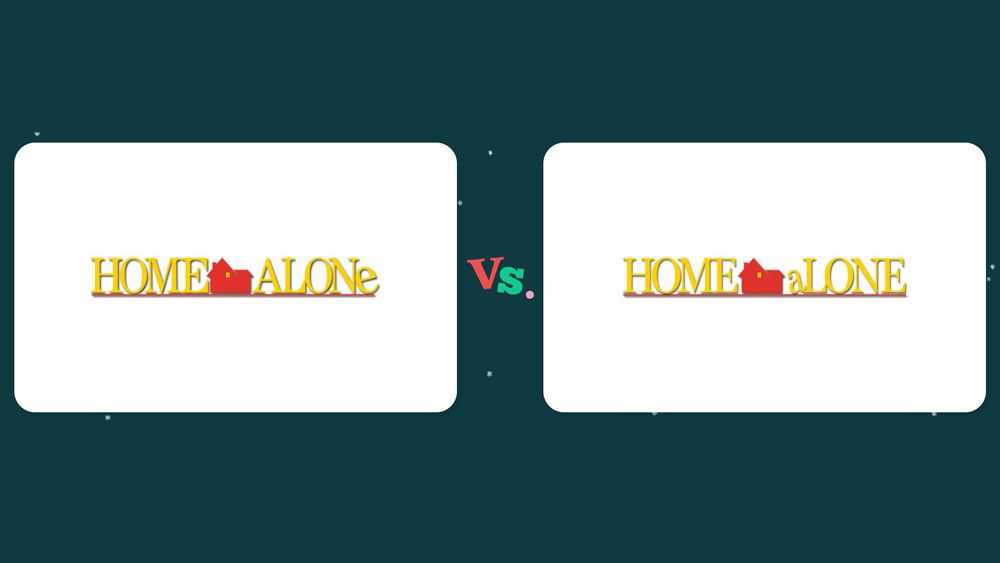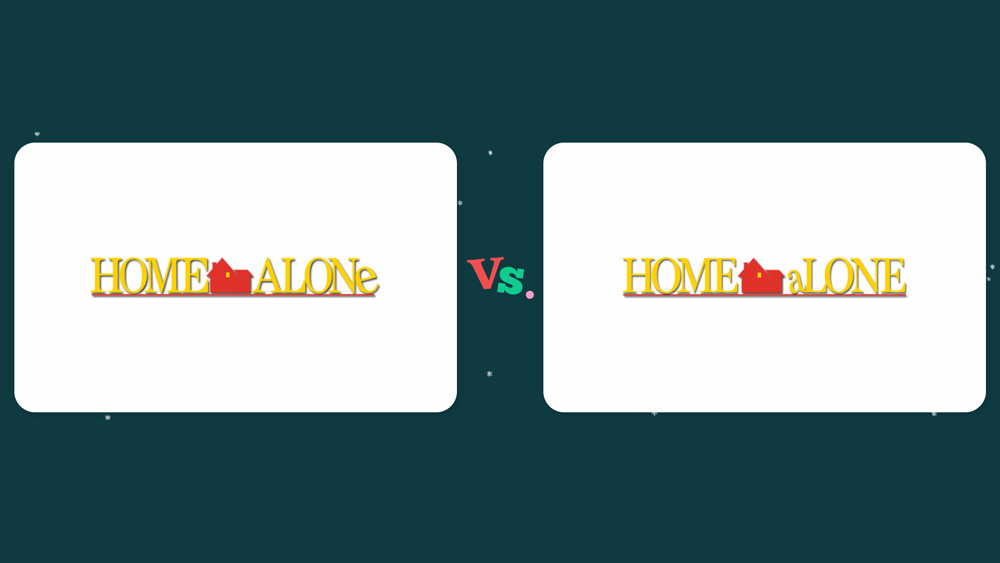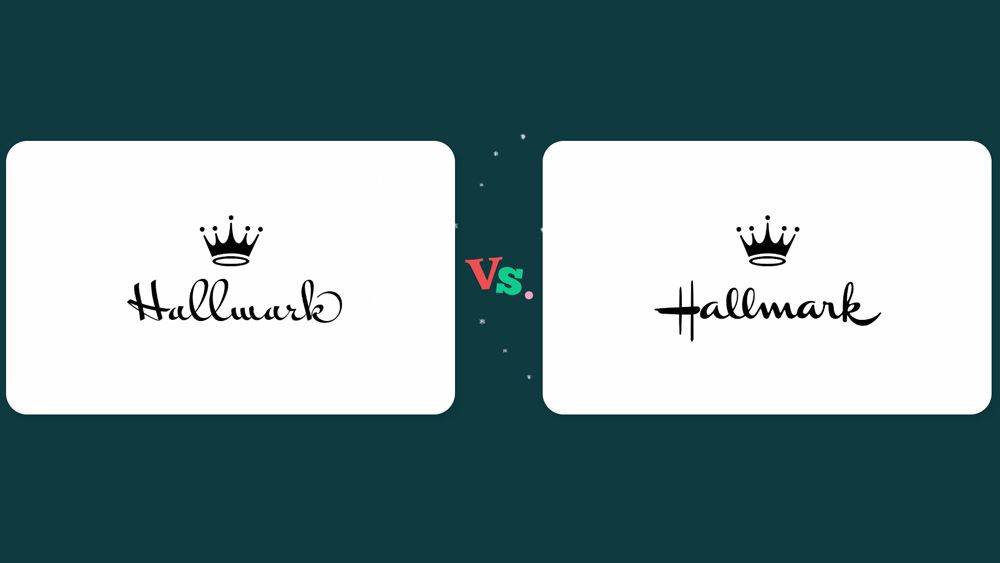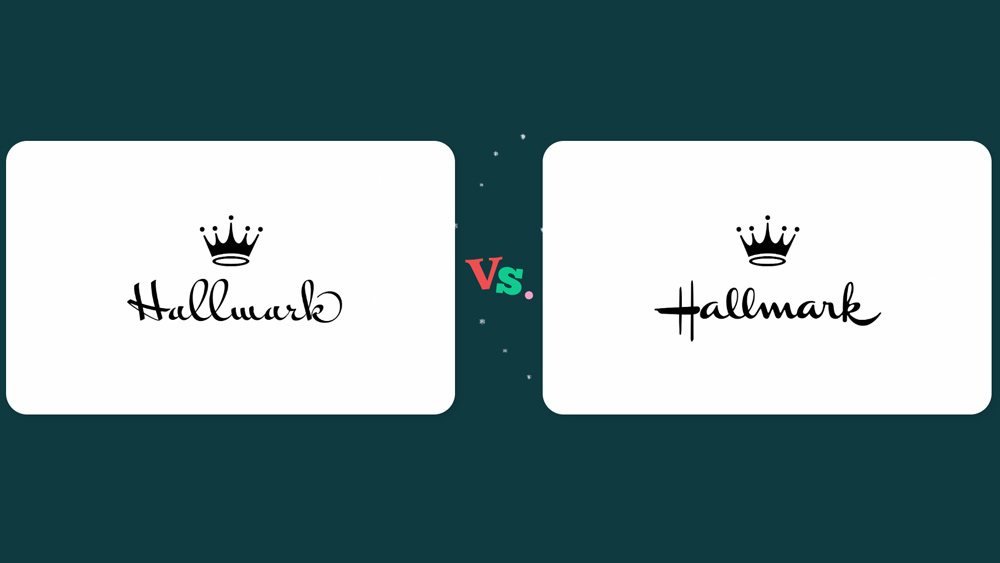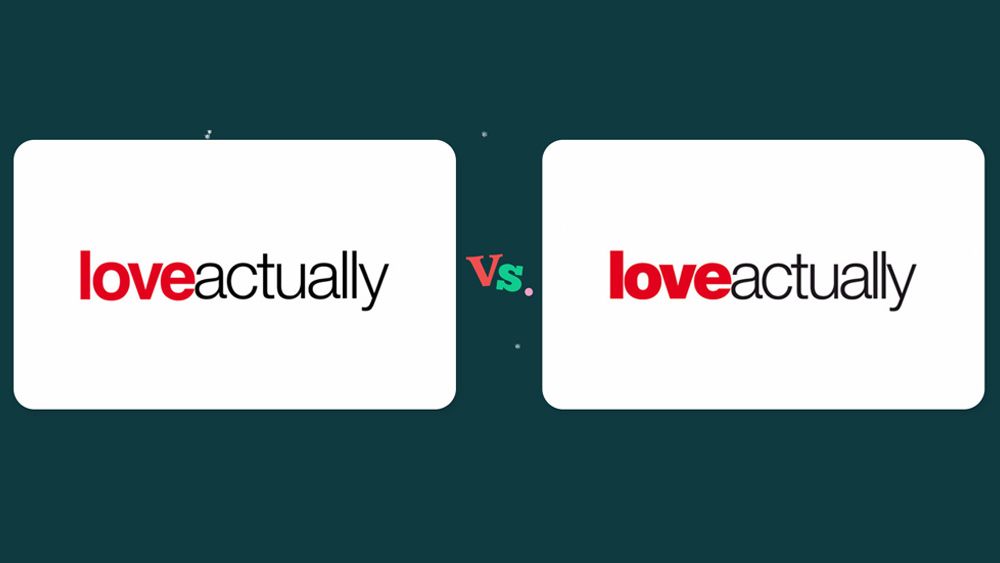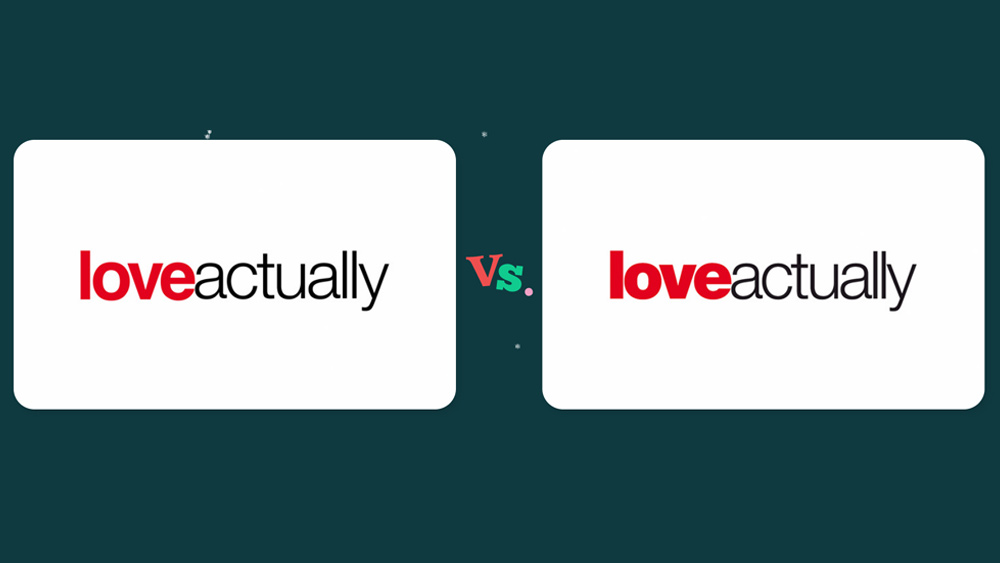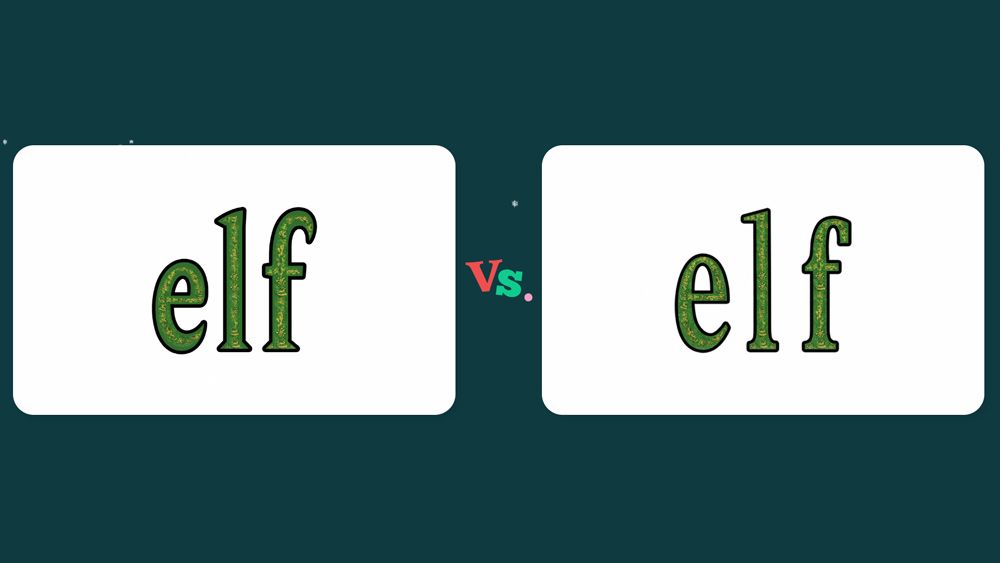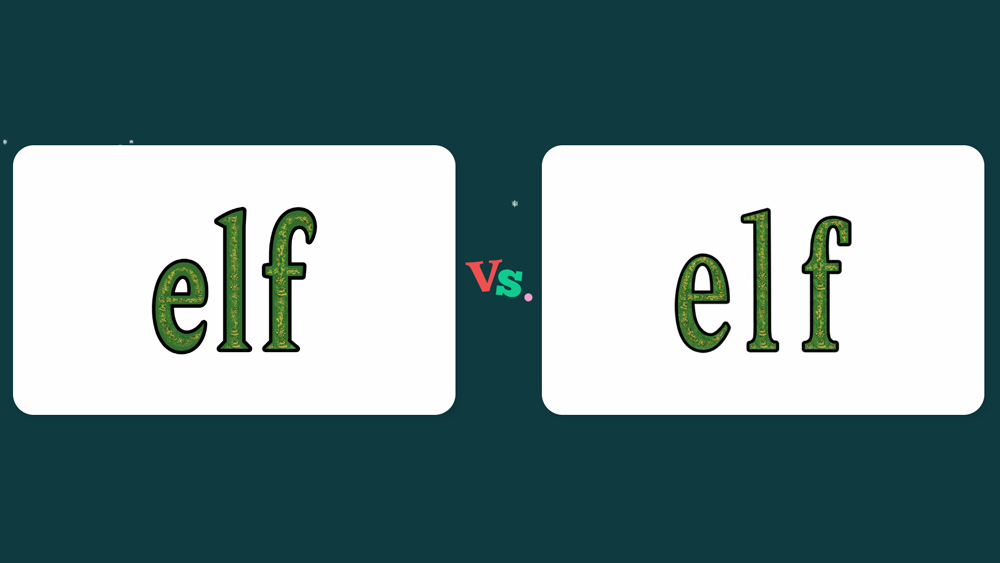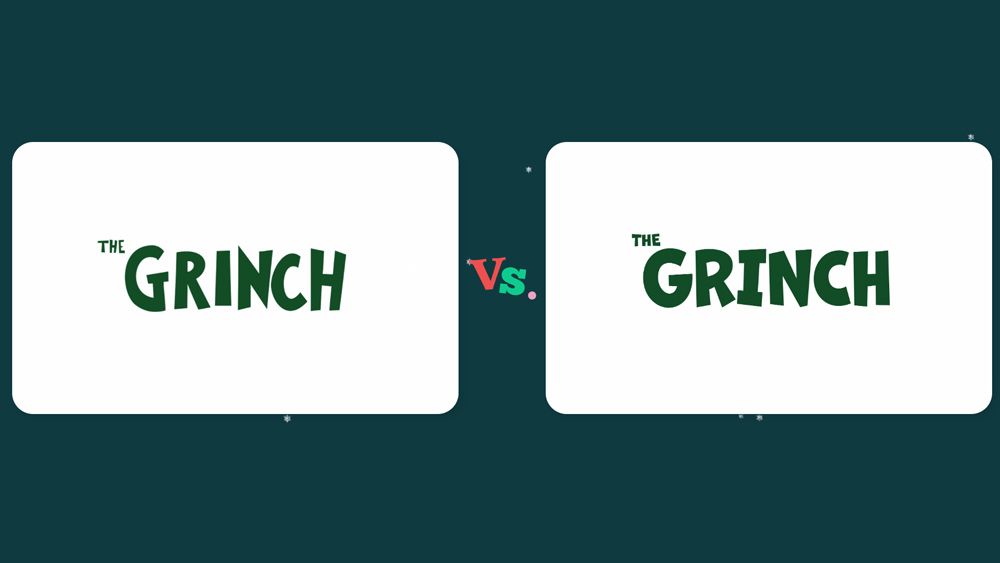
This tricky quiz tests how well you know your Christmas fonts
Christmas comes with a whole bunch of seasonal imagery that's become associated with the holidays, from pine trees to snowmen and Father Christmas himself. But for typography fans, there are also a lot of fonts that have a festive feel and have built up a connection with the occasion.
The Manchester-based branding agency Supremo has slightly altered the fonts used 10 logos associated with the festive period and put their modification alonside the legitimate counterparts. "Like Santa, can you tell the difference between the real one and the imposters?" it asks. I suggest trying the quiz now rather than after Christmas dinner.